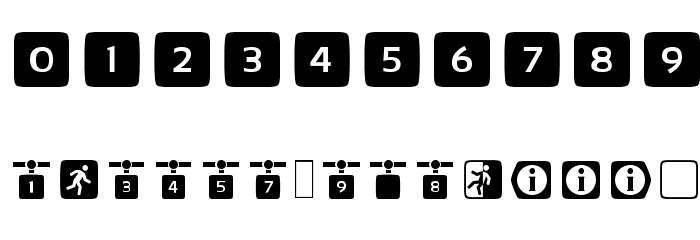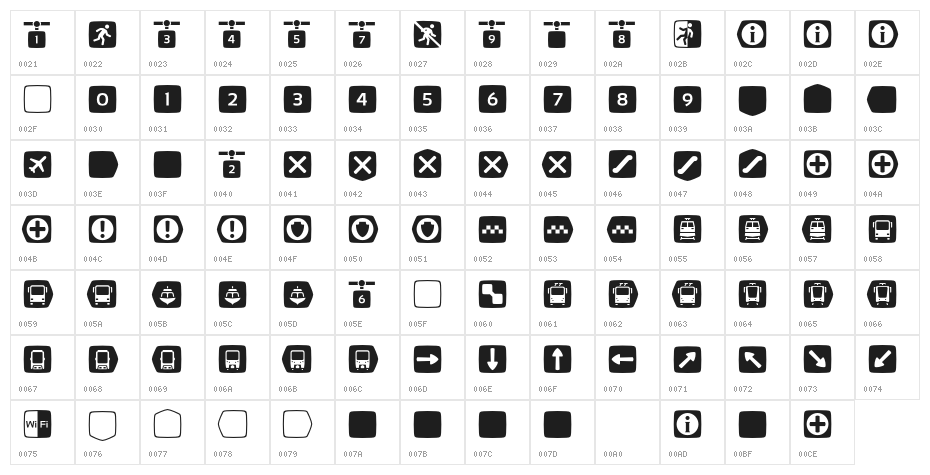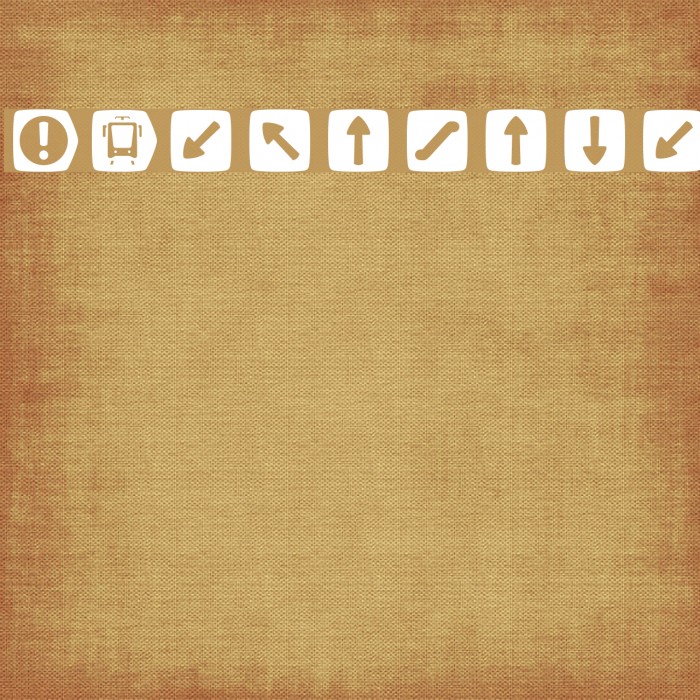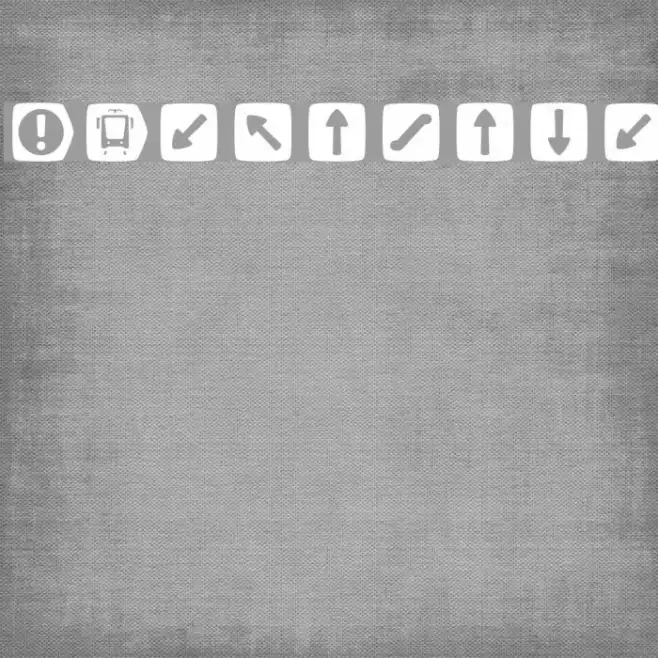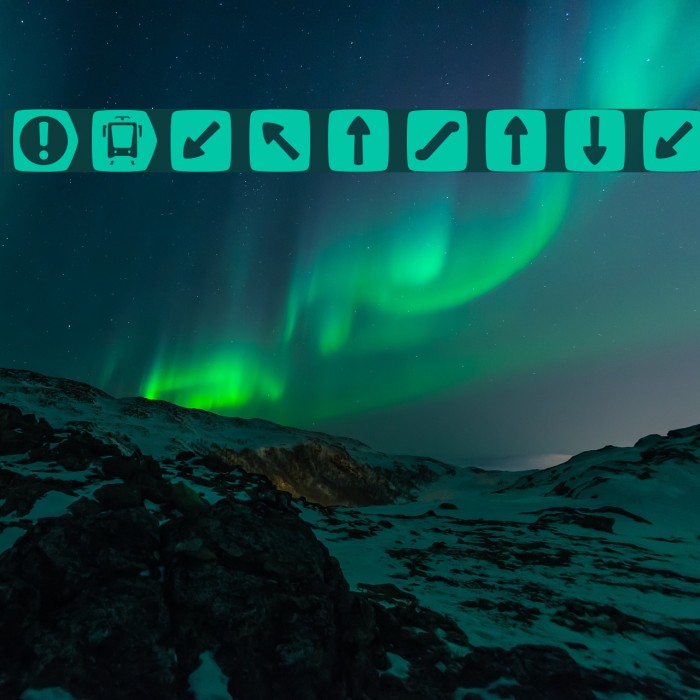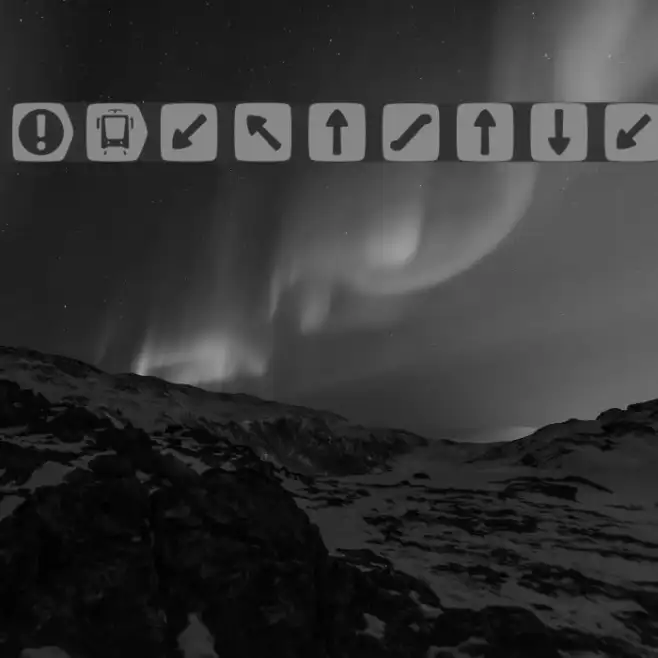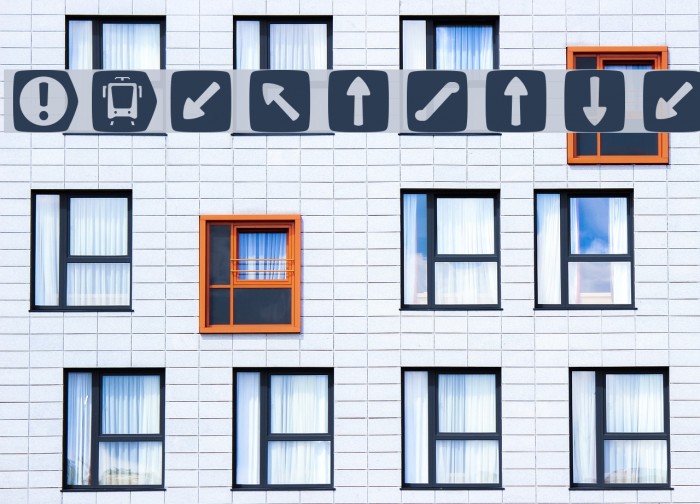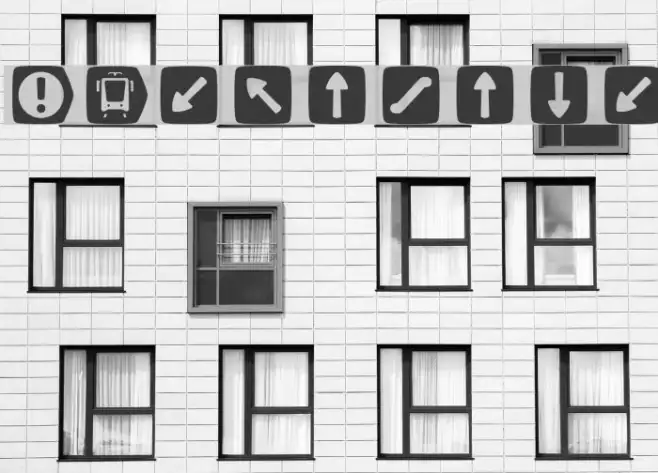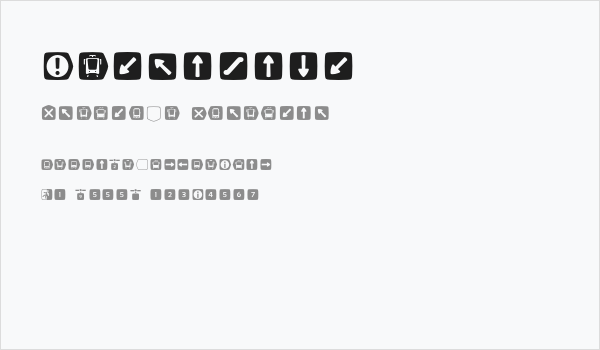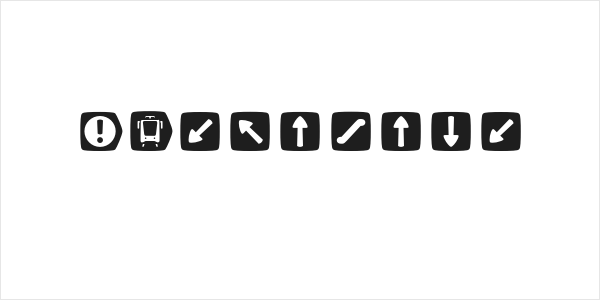
MetroFont Font
MetroFont Description
This typeface is a collection of symbols and icons, primarily designed for use in transportation and navigation contexts. The characters are enclosed within rounded squares and hexagonal shapes, providing a uniform and cohesive appearance. The icons include various transportation symbols such as buses, trains, and arrows, as well as other utility symbols like Wi-Fi and information signs. The design is bold and clear, ensuring high visibility and easy recognition, which is essential for public signage and wayfinding systems. The consistent use of black and white contrast enhances legibility, making it suitable for both digital and print media.
| Use Case | Signage, Wayfinding, Informational Displays |
| Proposed Projects | Ideal for public transportation signage, wayfinding systems, and informational displays in urban environments. |